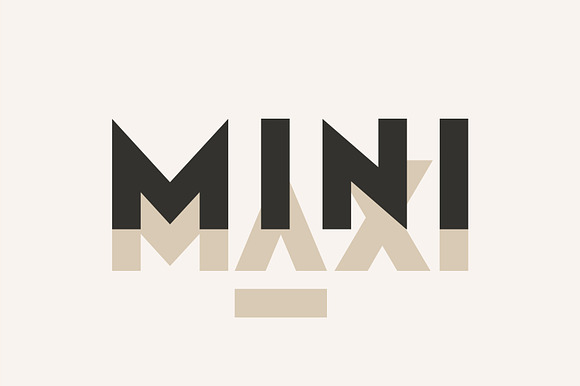
Klark. Sans Serif Font Family.
Klark. Sans Serif Font Family. by luxfont is a font selected for branding, posters, packaging, typography.
Why Klark. Sans Serif Font Family. is worth a look
Klark. Sans Serif Font Family. by luxfont fits naturally into Branding, posters, packaging, typography.